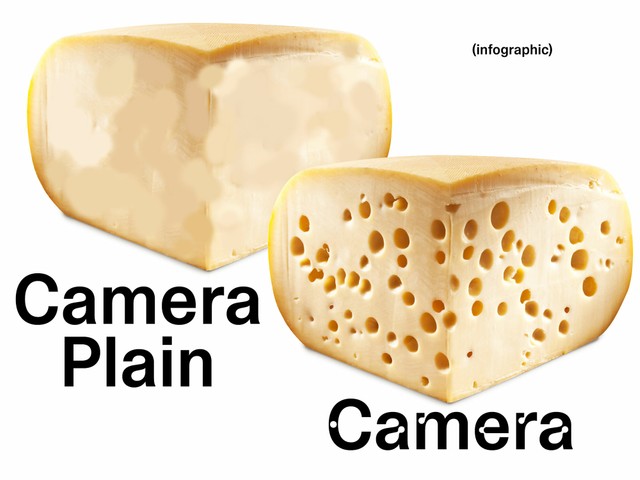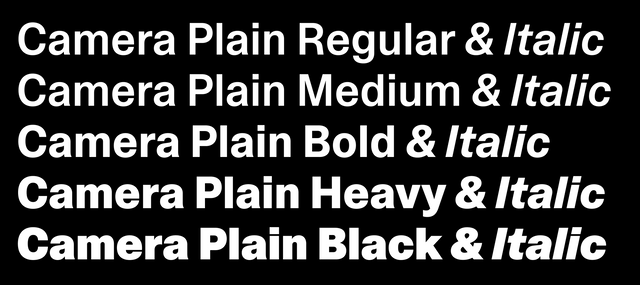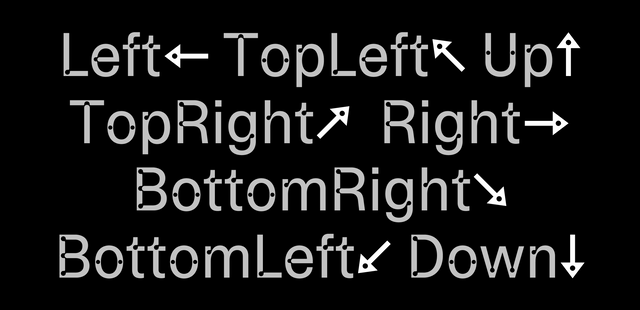
New Release: Camera
We’re pleased to announce the widespread release of Camera & Camera Plain today, including brand new italics 😬!
ABC Camera is a reinterpretation of light traps, which were originally used in the 60s and 70s to make text more readable on TV screens. Similar in logic to ink traps, light traps compensated for low resolution: When the font appeared, the screen’s blur filled in its holes so that each letter looked complete. Overall, Camera is a neutral, toned-down grotesque similar in style to Helvetia but with freer, less strictly defined proportions and a narrower body.
Camera and Camera Plain: Both include 10 styles—5 upright & 5 italics—& Variable Fonts that you can control yourself.
Camera Variable
Initially, ABC Camera existed as a one style, one weight font for a number of years, living its obscure but happy life holed up (lol) and waiting to be picked up, reconsidered, and extended. Dinamo member Sascha Bente took up the task after relocating to Berlin from Lausanne, and then in recent months, our in-house italics master Fabiola Mejía has chipped away at its obliques, which are premiering today.
Both families are also packaged as Variable Fonts.
Alternate characters
Camera includes five sets of alternates that adjust the font’s flavor—plus a couple of other hopefully noteworthy things.
Schoolbook G, R & a
Simplified t
Double storey g
Trigger warning: Arrows with holes 🤭
Square punctuation
Rounded punctuation
Added this pic just to surprise our tool loving editor 😚
—🧵 Christian Schwartz, Commercial Type
The larger platforms for selling your fonts are sort of chuegy (looking at you myfonts.com) and drive prices down—there is a race to the bottom attitude when it comes to pricing. It's a shame. It’s like fast fashion
—🌺 Leah Maldonado
An interesting challenge is context collapse. Social media has become an important part of type discovery, which is great for finding new fonts but does not encourage spending time with them or learning more about them.
—💌 David Jonathan Ross, Font of the Month Club
Ensuring locals make fonts for locals is the hardest challenge right now I think.
• In Cologne, Stefan Marx has just opened his newest exhibition, Still Life, at Ruttkowski;68. New type works are on display, as well as a motif series with fruit still lifes, and flower and frog paintings. We can’t wait to visit.